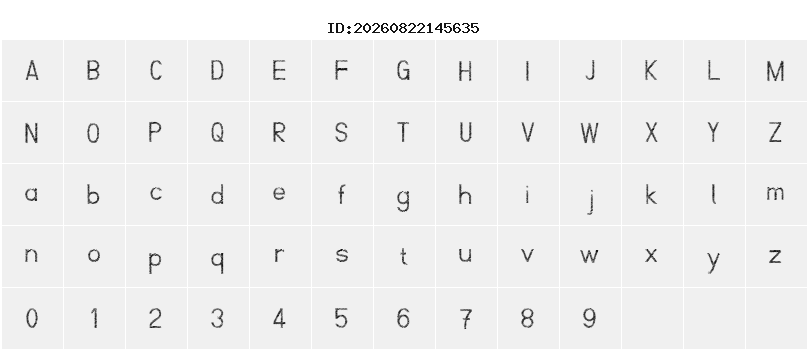
ScrFIBbLE Preview
• Font Name: ScrFIBbLE
• Font ID: PeterWioegel: Fibel Nord: 2009
• Full Font Name: ScrFIBbLE
• PostScript Name: ScrFIBbLE
• Designer: Manuel Viergutz
• Manufacturer: Manuel Viergutz
About ScrFIBbLE.ttf
ScrFIBbLE.ttf is a modern, elegant sans-serif font designed for ultimate readability and visual harmony. Perfect for branding, headlines, web design, and print materials.